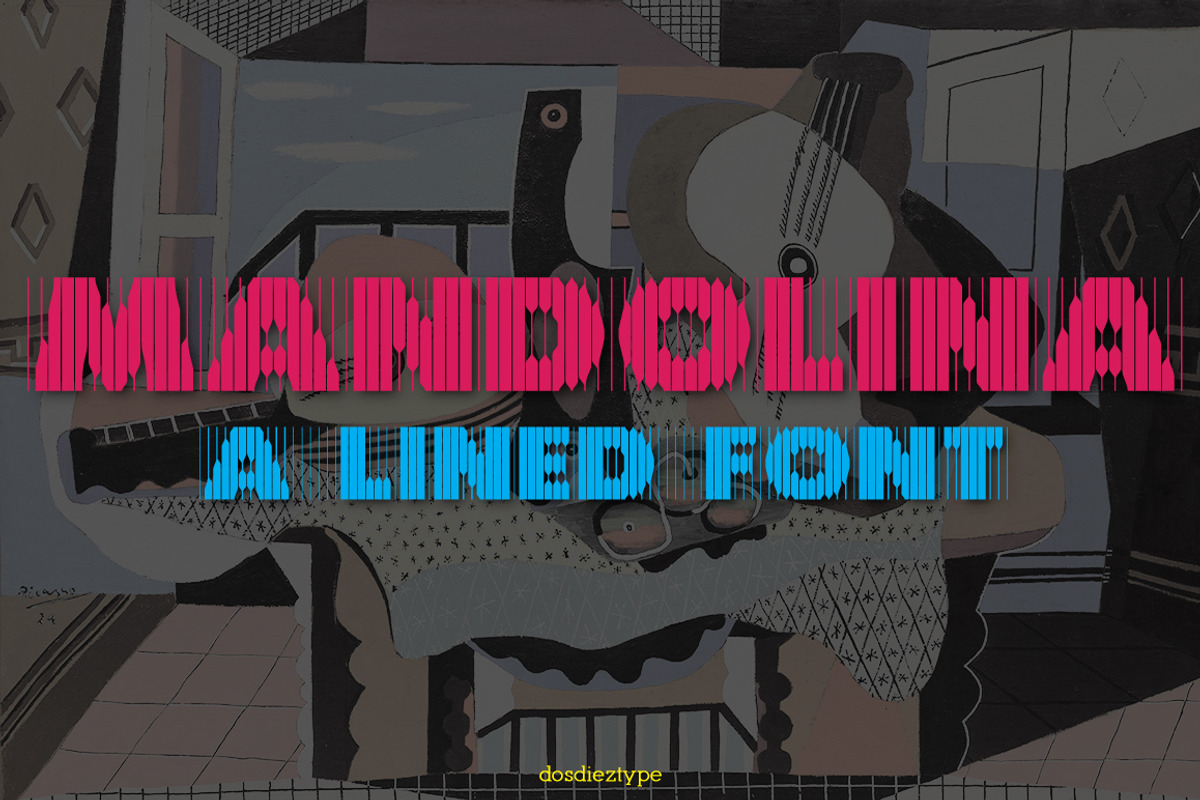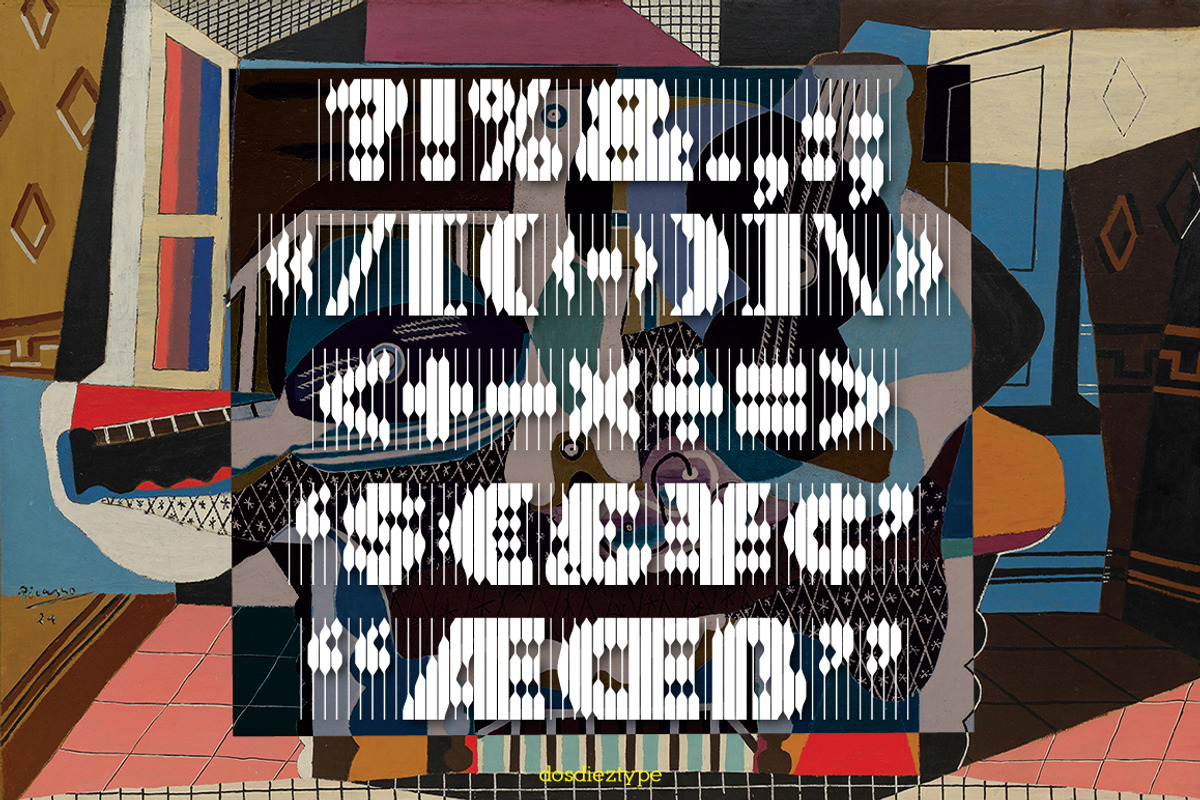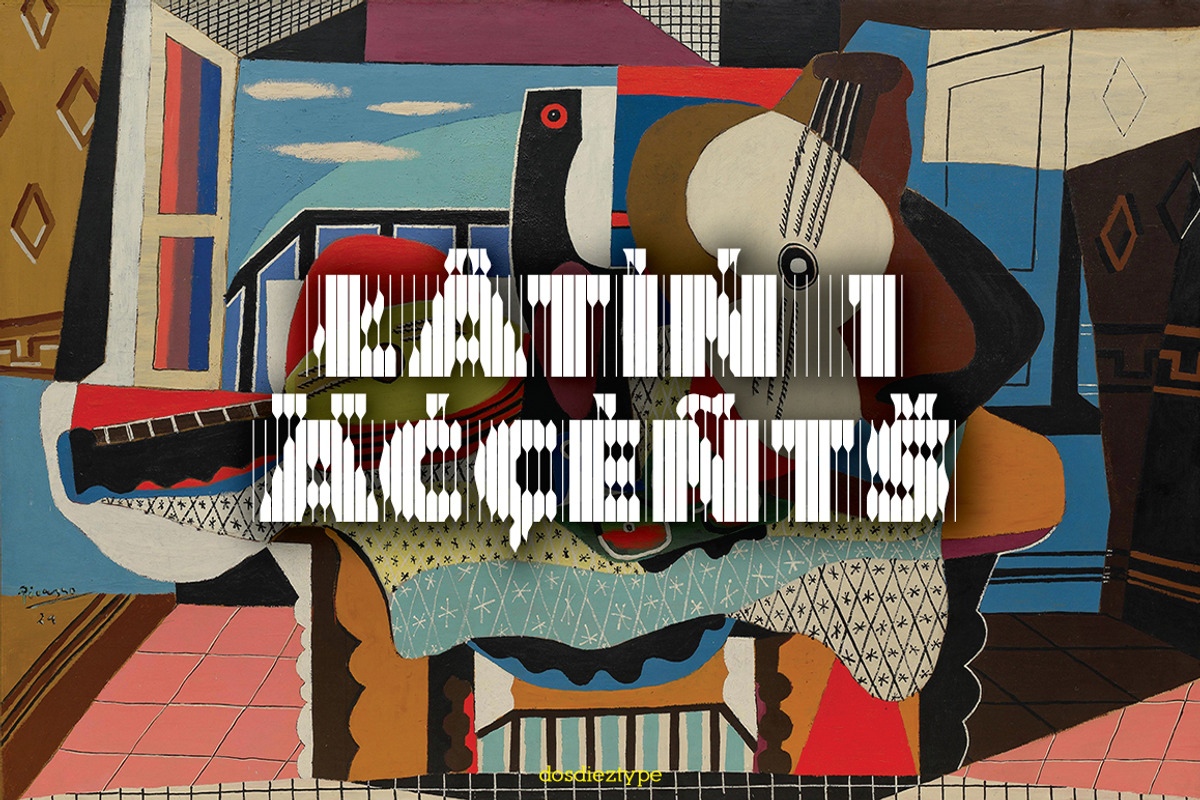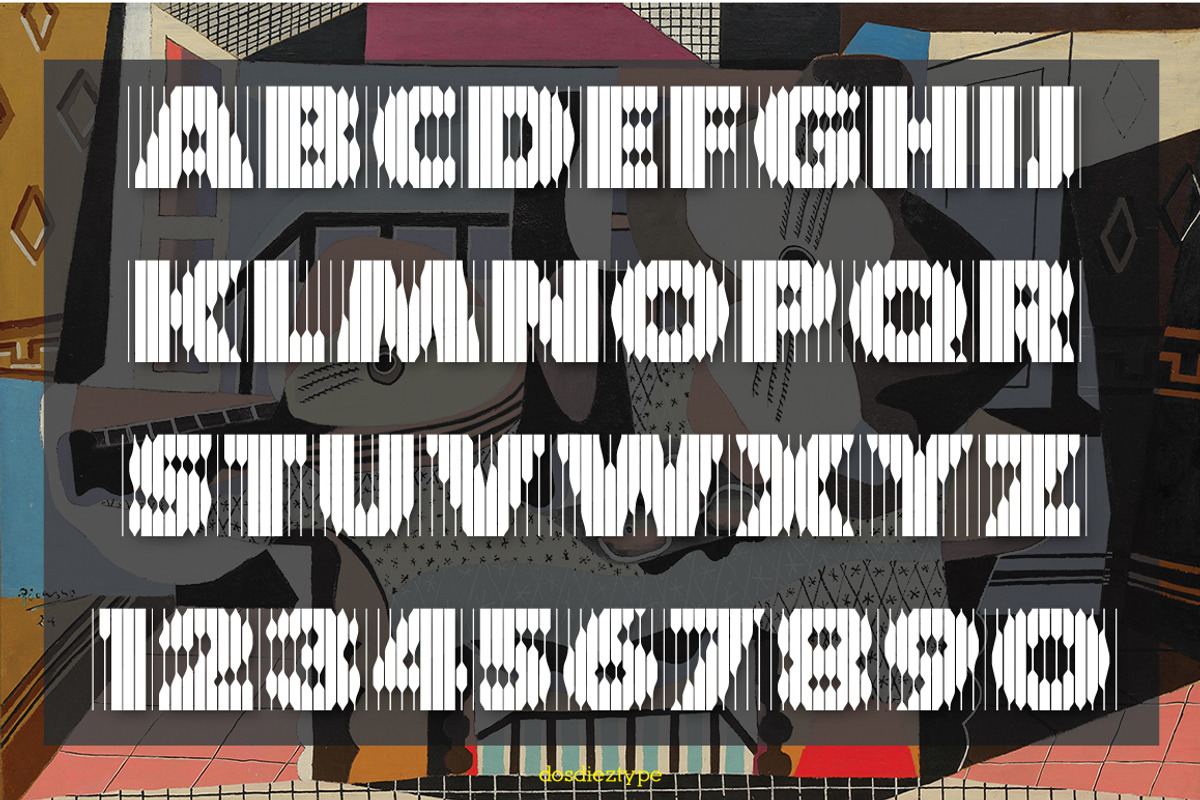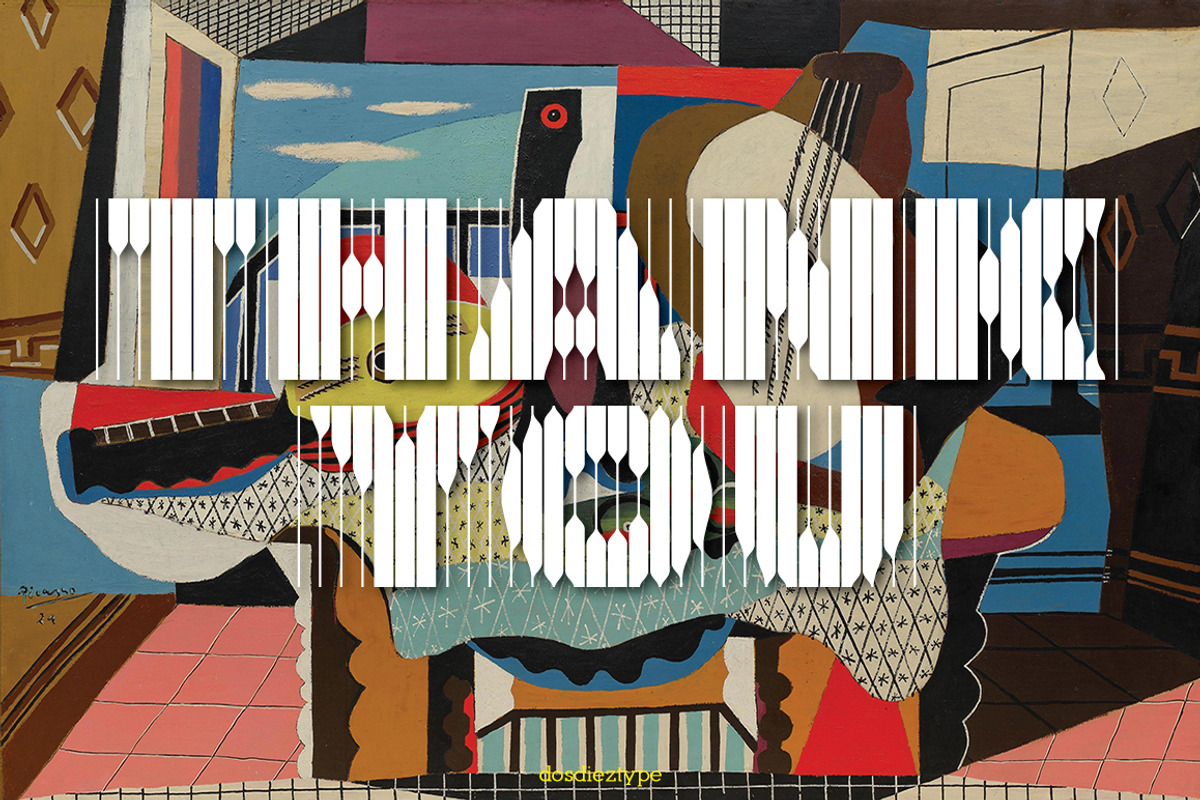
Mandolina Lined Font
Mandolina is an all capitals display font with a complete accented letters used in Western Europe (Latin 1). Some accented letters used in Eastern Europe are also included in the font. The characters in the font are not all shown in the preview images but you will have a very good idea on what is on the font based on the previews. Mandolina has 247 glyphs and is available in both OpenType (OTF) and TrueType (TTF).
Mandolina Lined Font by DosDiez Type fits naturally into Branding, posters, packaging, typography.